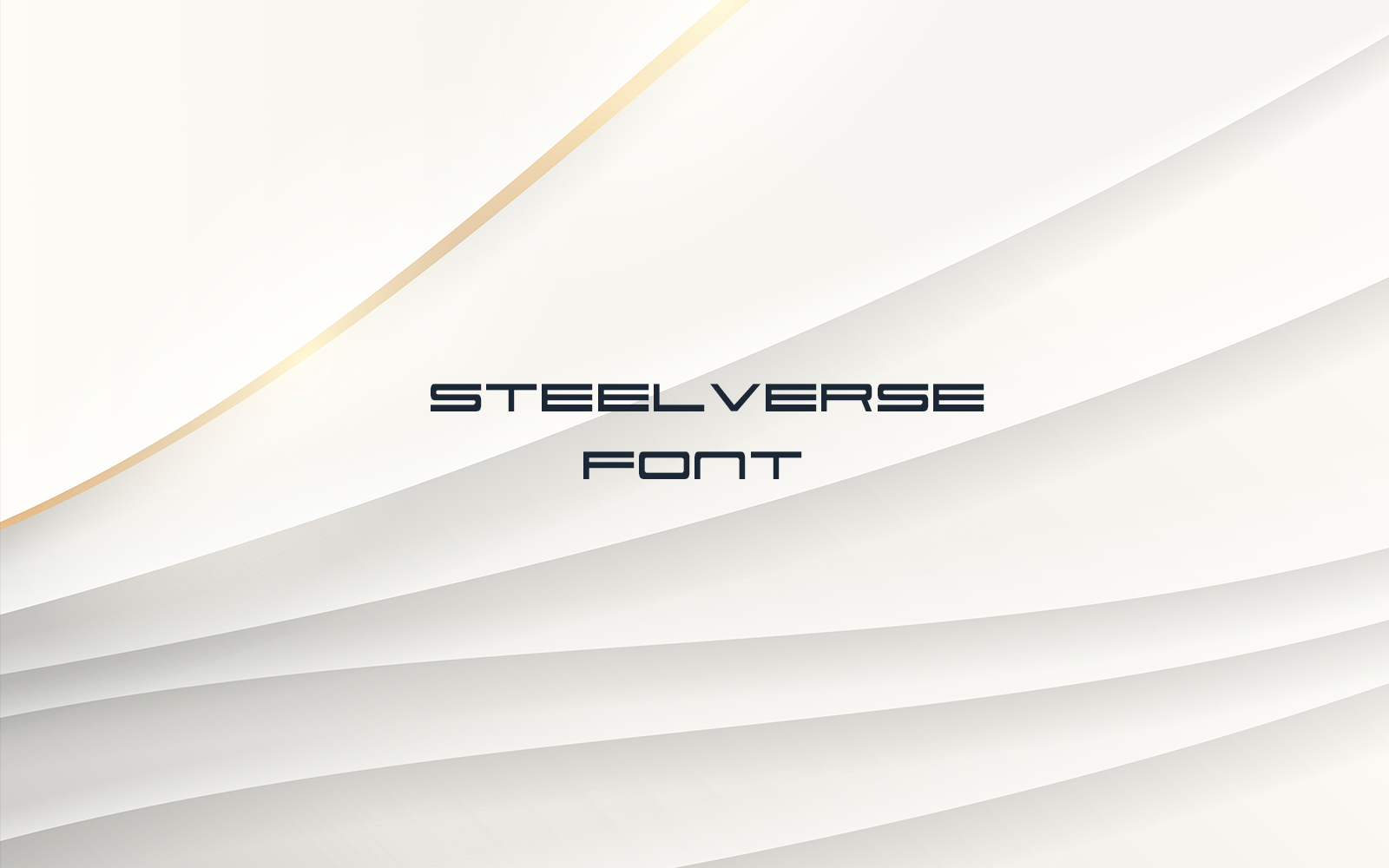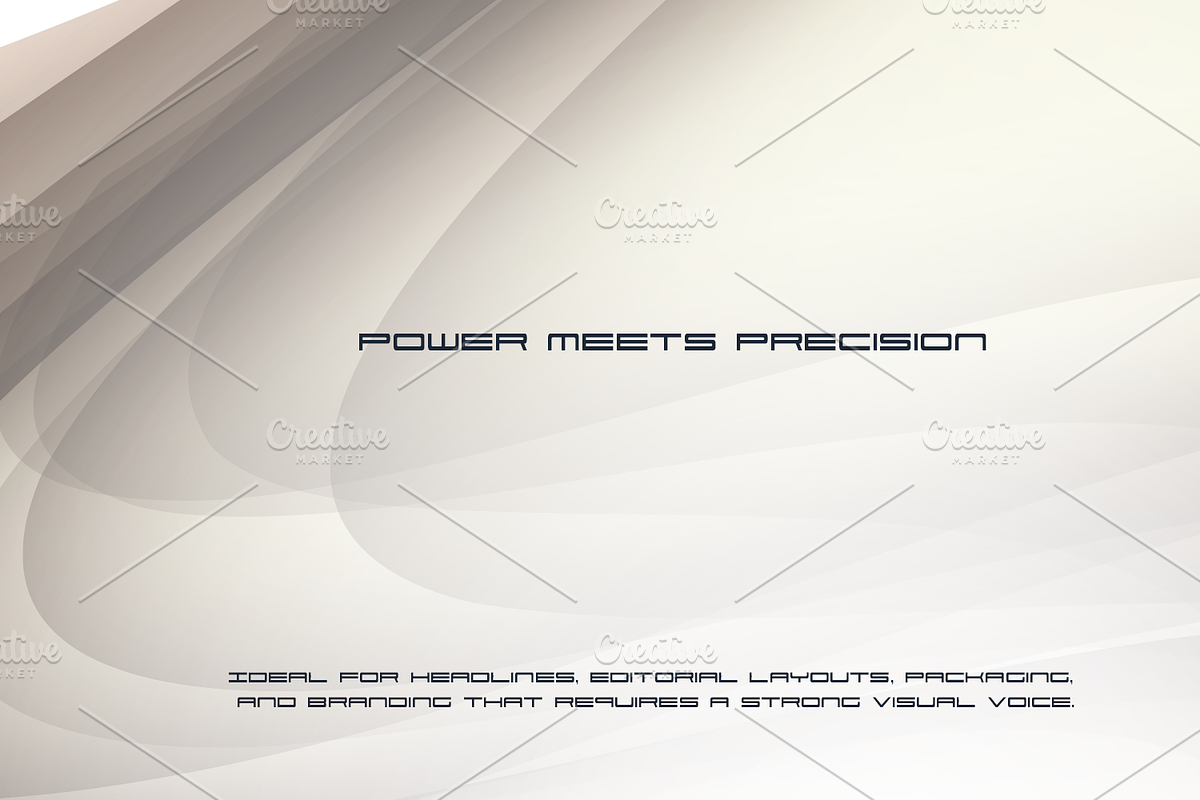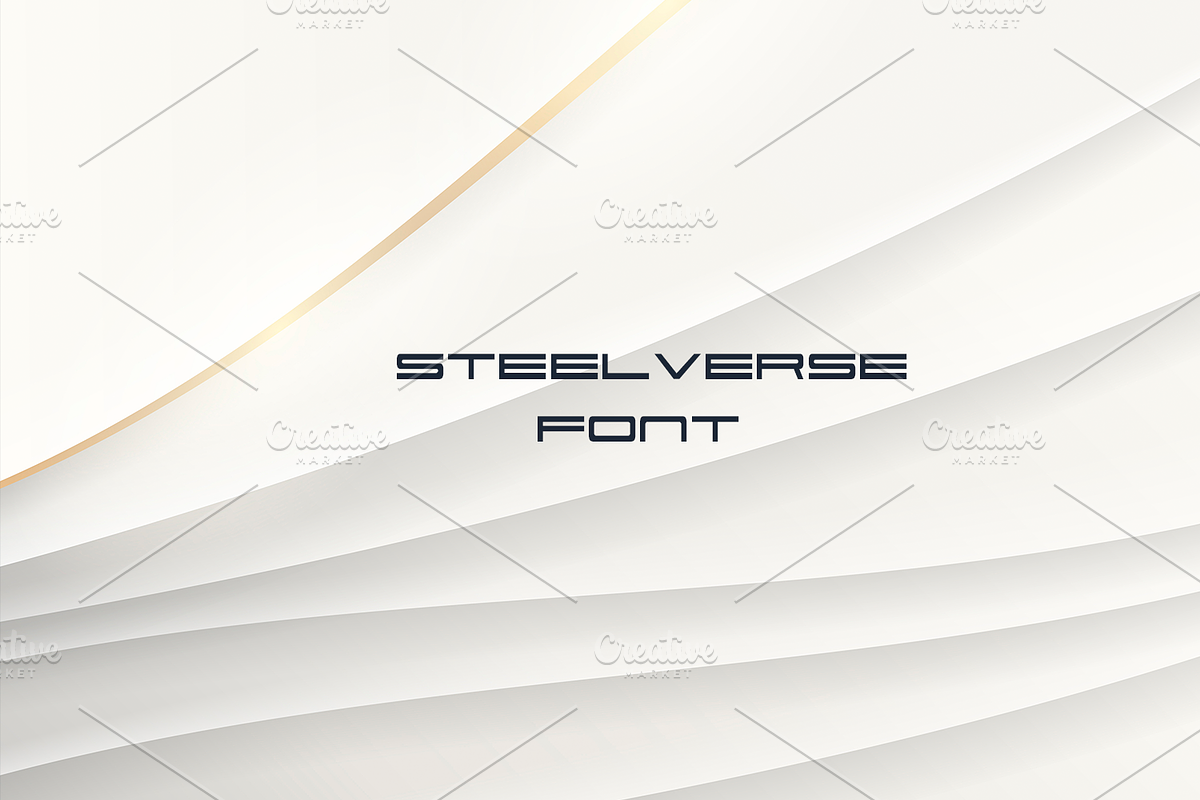
Power meets precision in a typeface designed to stand out. Steelverse is a bold, no-nonsense font that commands attention while maintaining clarity and impact.
Ideal for headlines, editorial layouts, packaging, and branding that requires a strong visual voice. With its tight letterforms and assertive weight, this font turns every word into a powerful design element. Speak loud. Stay sharp. Make a statement.